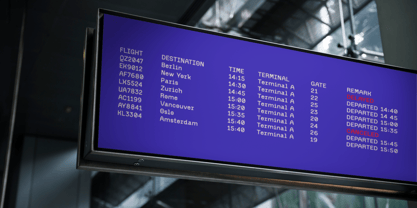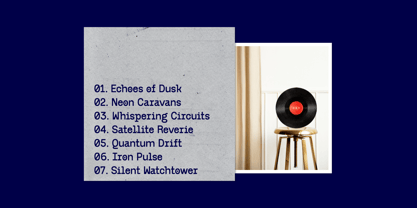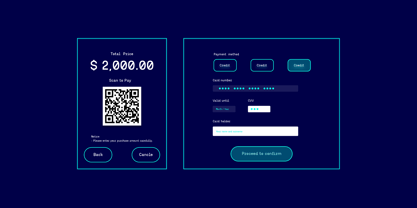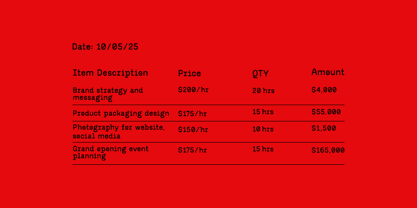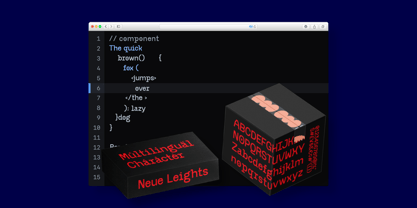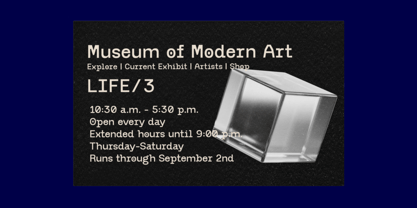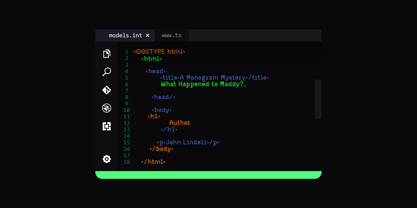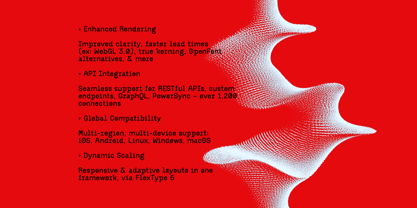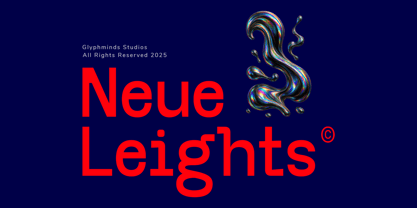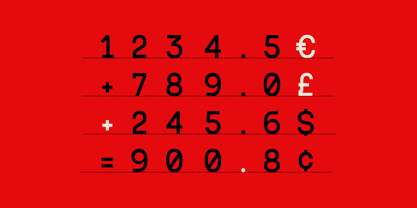
Neue Leights
The Neue Leights Font Family was designed by Baliya Ibnu Bi Malkan and published by Glyphminds Studios. Neue Leights contains 1 styles. More about this family
Unleash your creativity with Neue Leights, a stunning Monospaced Grotesque Sans-Serif font that blends modern elegance with a unique, fluid design! Perfect for bold headlines, logos, and digital projects, this font’s iridescent-inspired style will make your work stand out.